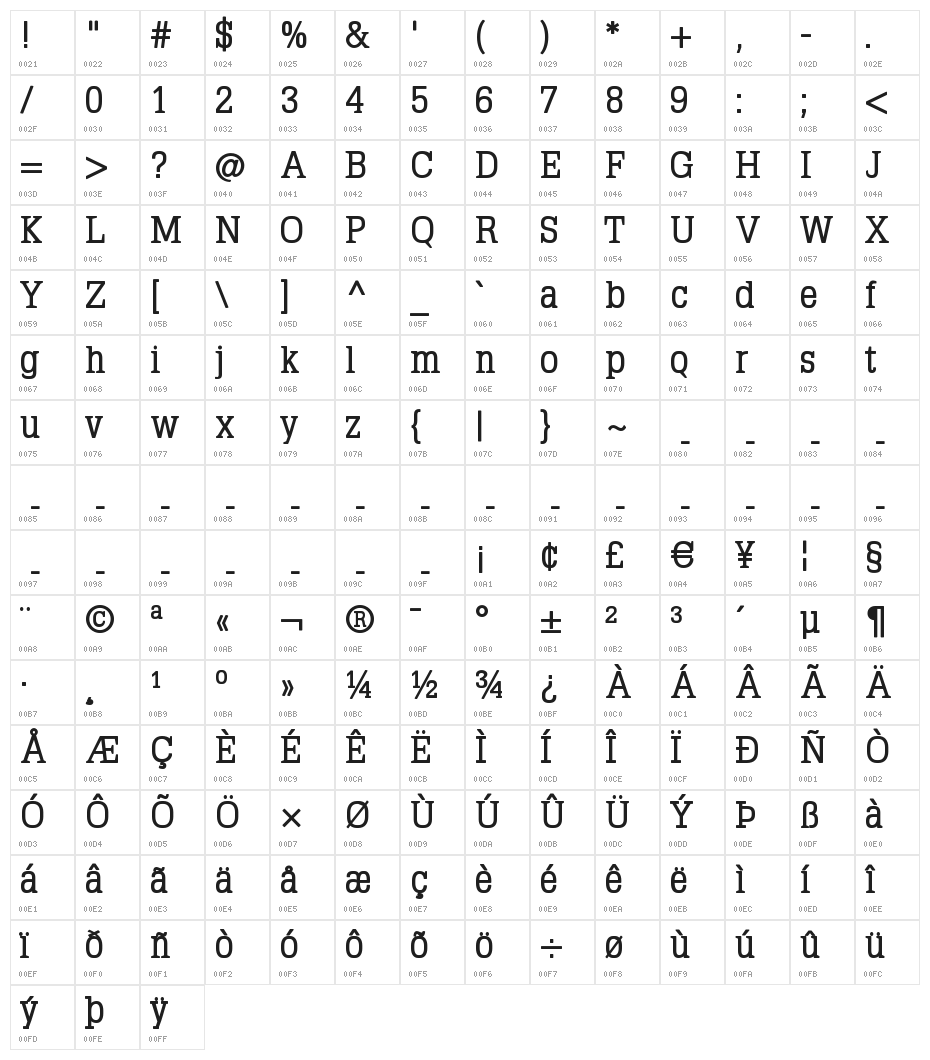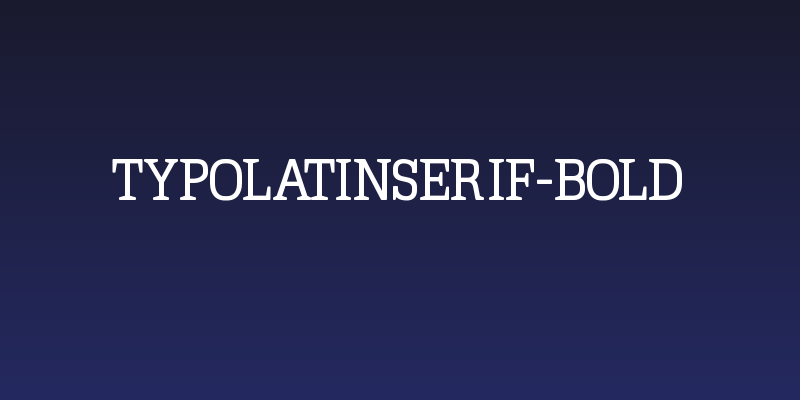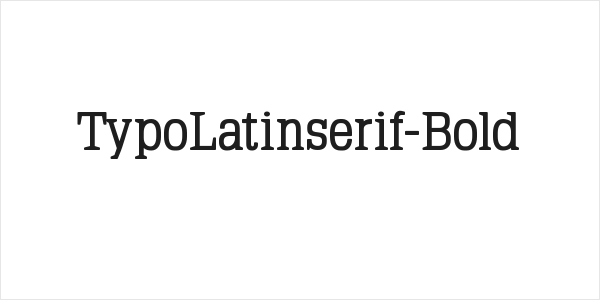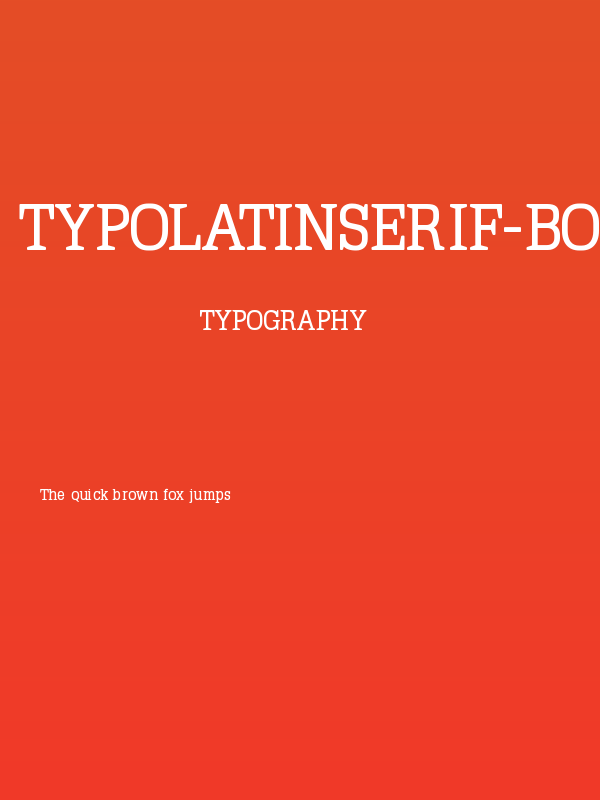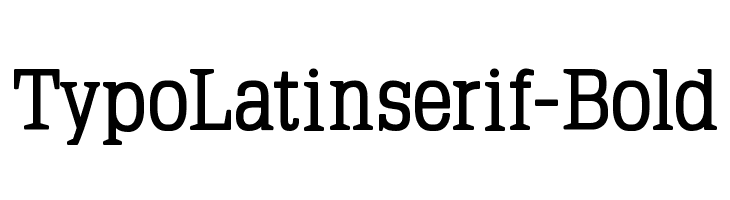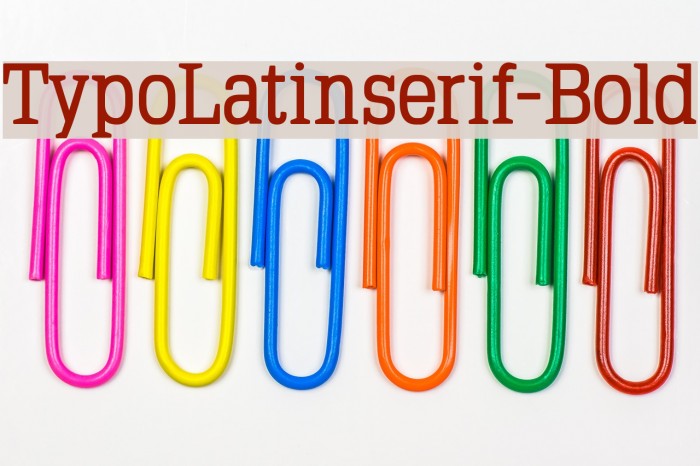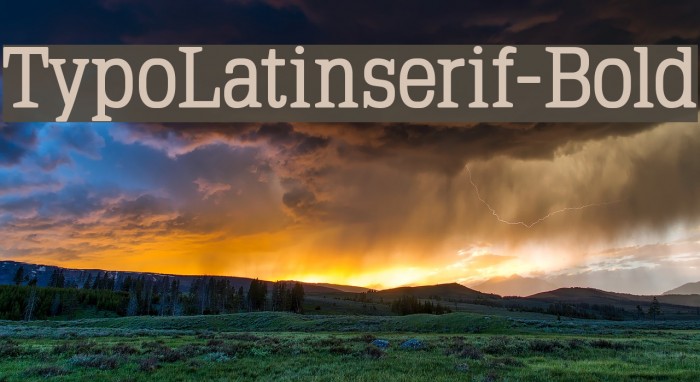
TypoLatinserif-Bold Font
TypoLatinserif-Bold Description
This font features a classic serif style with bold, strong strokes that convey a sense of authority and tradition. The serifs are pronounced, providing a timeless and formal appearance. The uppercase letters are uniform and balanced, while the lowercase letters maintain a consistent height, ensuring readability. The numerals are clear and distinct, making them suitable for both text and numerical data. Special characters are well-defined, adding versatility to the font's usage. Overall, this font combines elegance with functionality, making it ideal for a variety of applications.
| Overall Style | Classic |
| Use Case | Headlines, Body text, Logos |
| Proposed Projects | Ideal for book covers, formal invitations, editorial design, and branding materials. |